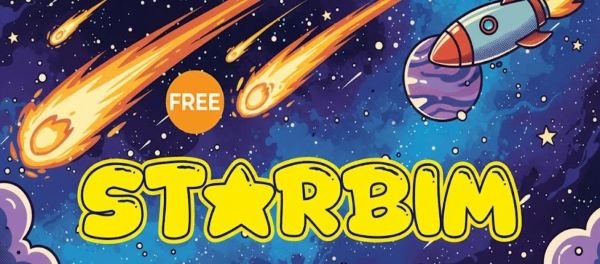
Starbim Font by Khurasan is a decorative display typeface whose bold forms and quirky curves seem to vibrate with contained enthusiasm. There is a visual restlessness to the letterforms that keeps the eye engaged, making text feel genuinely lively rather than just technically correct.